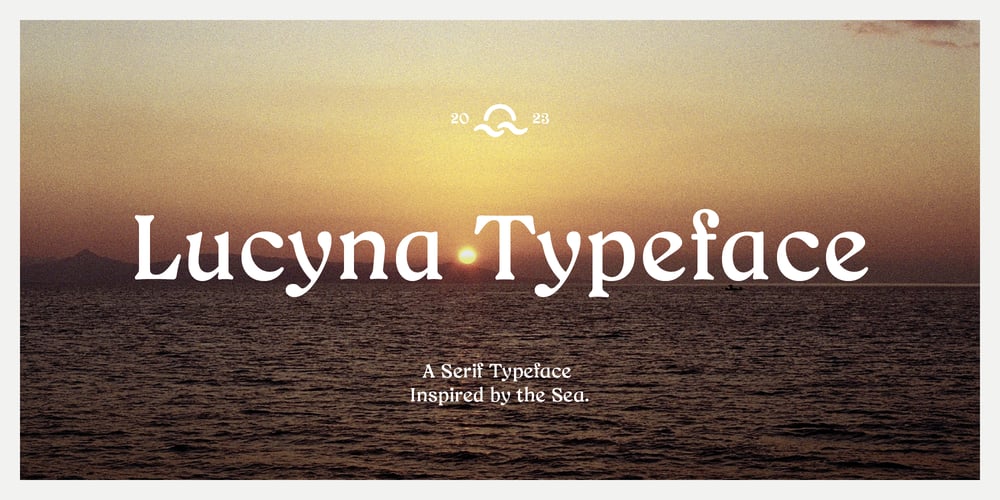
Lucyna Font Family was designed by Kacper Janusiak and published by K94 Studio. Lucyna contains 1 styles and family package options. The Lucyna serif font is a stylish and sophisticated typeface that exudes elegance and refinement. The font’s unique design, inspired by the natural beauty and fluidity of the sea, features clean and well-defined serifs that give it a distinctive and timeless character. One of the most popular styles in the Lucyna family is the regular weight, which has a balanced and harmonious look that is easy on the eyes. This makes it perfect for use in long-form text such as books, magazines, and newspapers. The regular style’s clean lines and legibility also make it an excellent choice for branding and advertising, where it can add a touch of sophistication and class. With its versatility and expressive nature, the Lucyna regular style is a font that can adapt to a wide range of design needs, while still maintaining its distinctive character and personality.